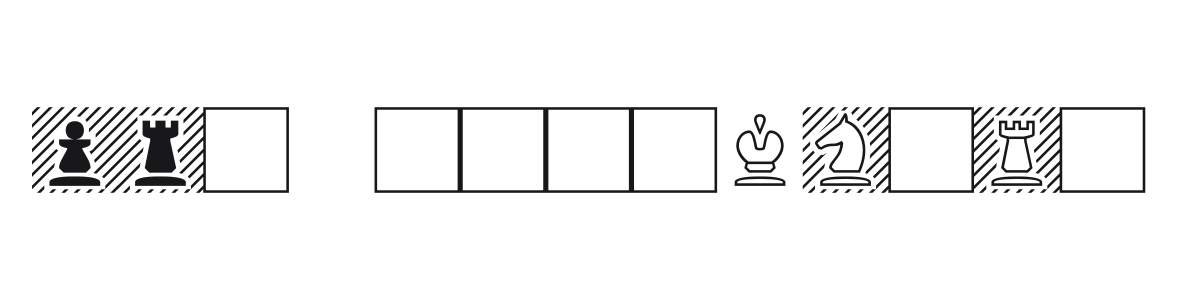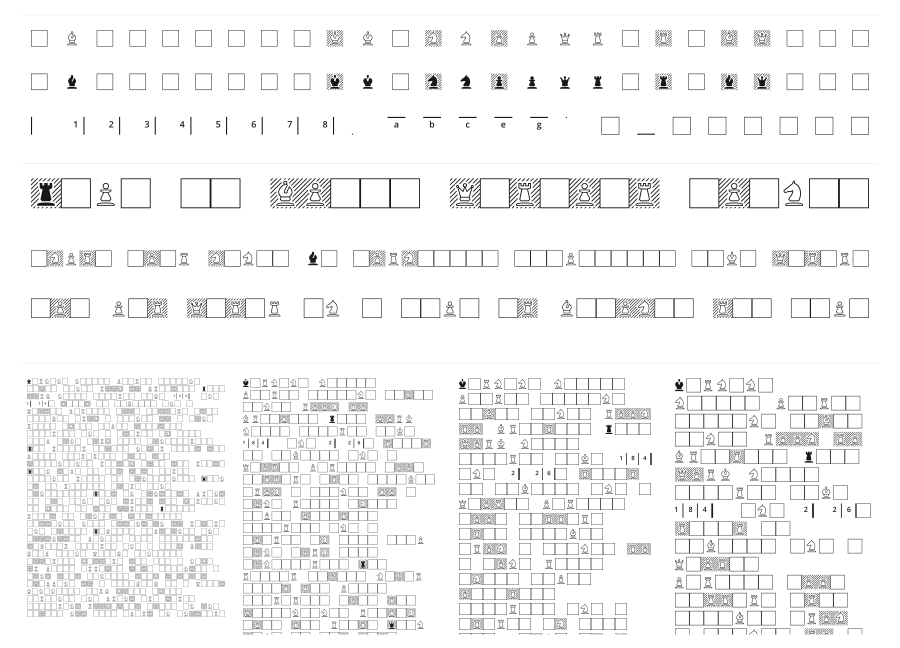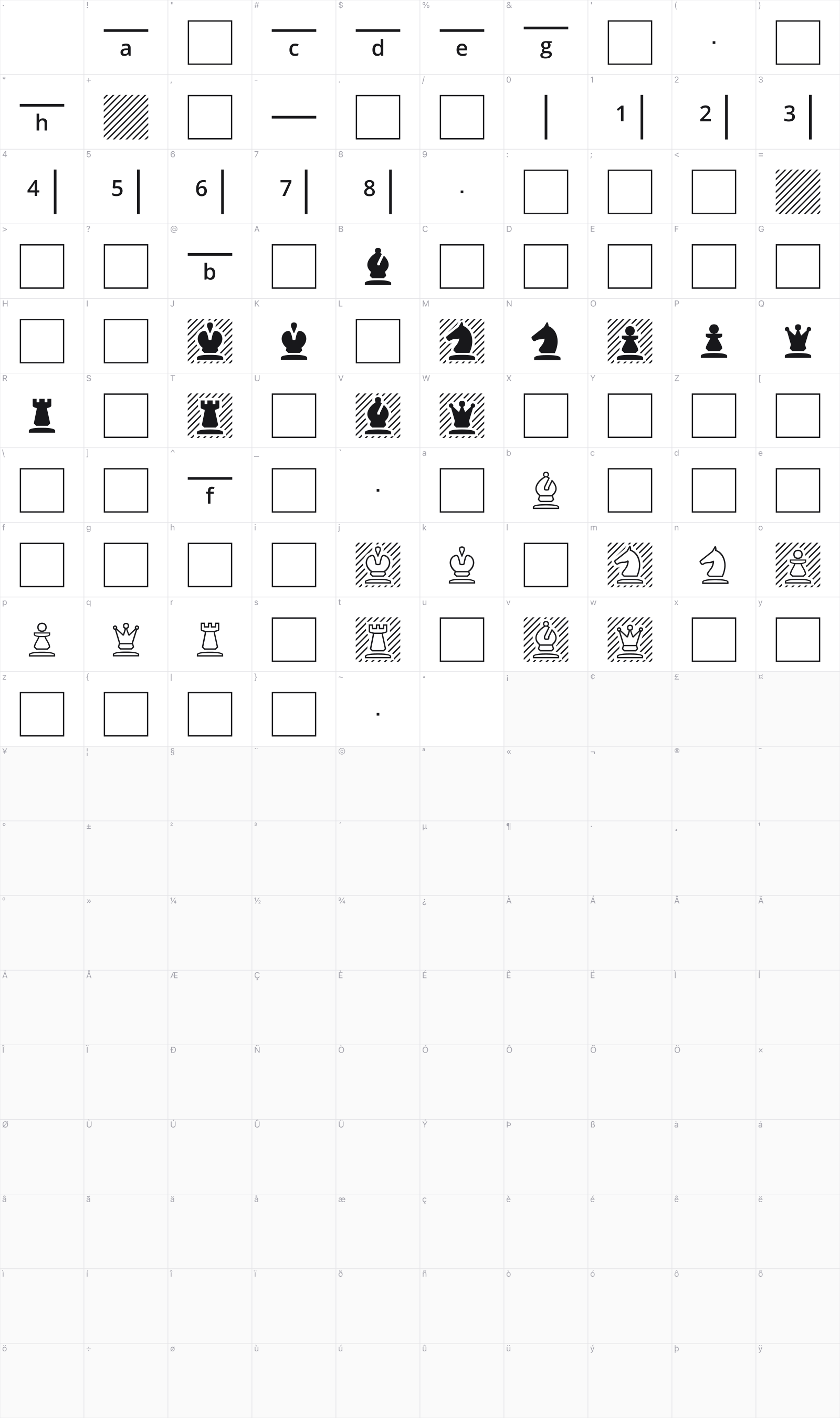
OTL Checkmate
OTL Checkmate is a chess diagram font that uses OpenType contextual alternates to automate board layout when typing game positions. Characters include outlined chess pieces and alternating light and dark squares, with dark squares rendered as diagonal hatching. The smart 'calt' feature automatically assigns correct square colors and piece placement, turning what would be tedious manual work into straightforward keyboard input.